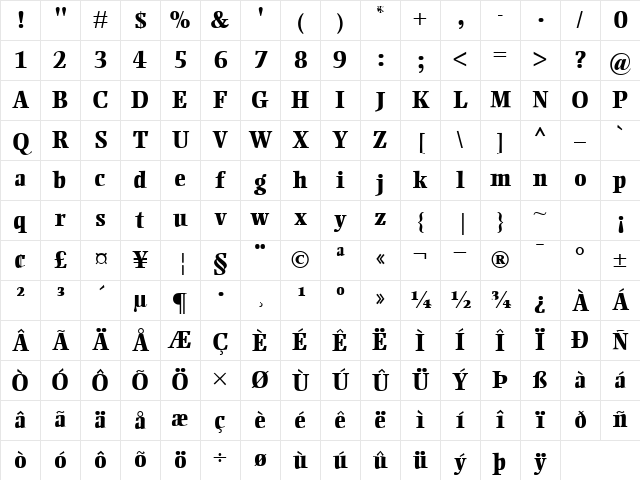
Complete DukeExtraBold Regular glyph index. Displaying only characters natively supported by DukeExtraBold Regular font.
DukeExtraBold is a composed and adaptable typeface that performs quietly and consistently across a wide range of design contexts. Its bold stroke weight gives it real presence on the page.
Pro Tip: Use DukeExtraBold in both headline and body roles to test its range before committing to a single application.